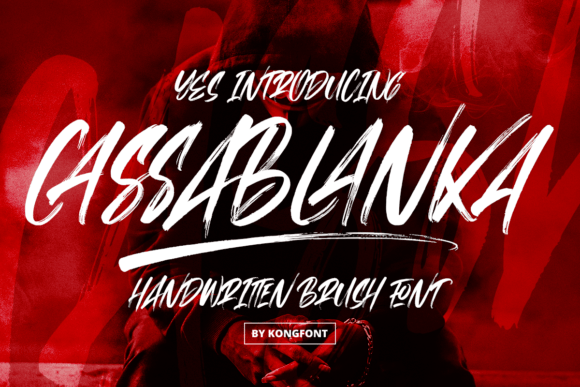
Journey into the world of Cassablanka Font, a captivating script font that dances across your designs with its urban flair. Let your imagination run wild, weaving together words that exude personality and style. Whether you're crafting logos that demand attention or invitations that evoke a sense of effortless elegance, Cassablanka Font is your trusted companion.
With its fluid lines and playful spirit, Cassablanka Font dances across your designs like a modern-day graffiti artist, leaving a trail of visual intrigue in its wake. Each character is a work of art, boasting unique flourishes and dynamic energy that transform your words into captivating compositions.
Dive into a world of creative possibilities with Cassablanka Font. Its versatility knows no bounds, lending itself seamlessly to a myriad of design projects. Create logos that captivate, wedding invitations that ignite hearts, or branding campaigns that leave an indelible mark. The possibilities are as endless as your imagination.
Cassablanka Font is not just another font; it's a gateway to a world of self-expression. Unleash your inner artist and let your designs speak volumes. Its intuitive design and effortless flow make it a joy to use, empowering you to create designs that resonate with your audience.
Step out of the ordinary and embrace the extraordinary with Cassablanka Font. Its urban edge and stylish lettering elevate your designs to new heights, ensuring they stand out from the crowd. Stand shoulder to shoulder with design visionaries who recognize the transformative power of typography.
Don't settle for ordinary; dare to be different. Choose Cassablanka Font and embark on a creative journey that will leave your audience breathless. Experience the thrill of crafting designs that ignite emotions and leave a lasting impression.